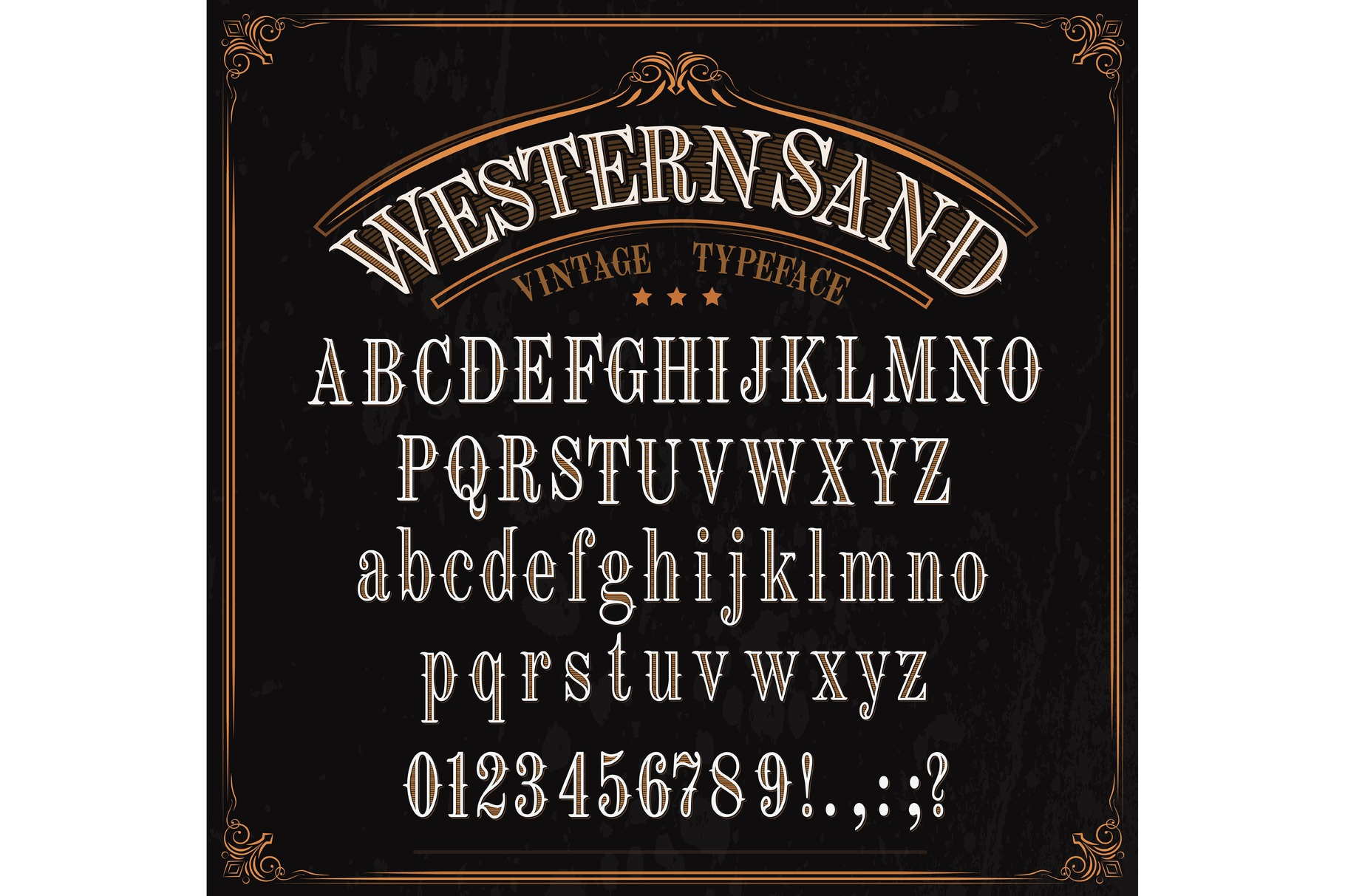
Western font alphabet, numbers
Western font letters. Vector vintage typeface in retro vignette frame. English ABC, uppercase and lowercase alphabet, numbers and punctuation marks, signs, special symbols. Wild west letters design